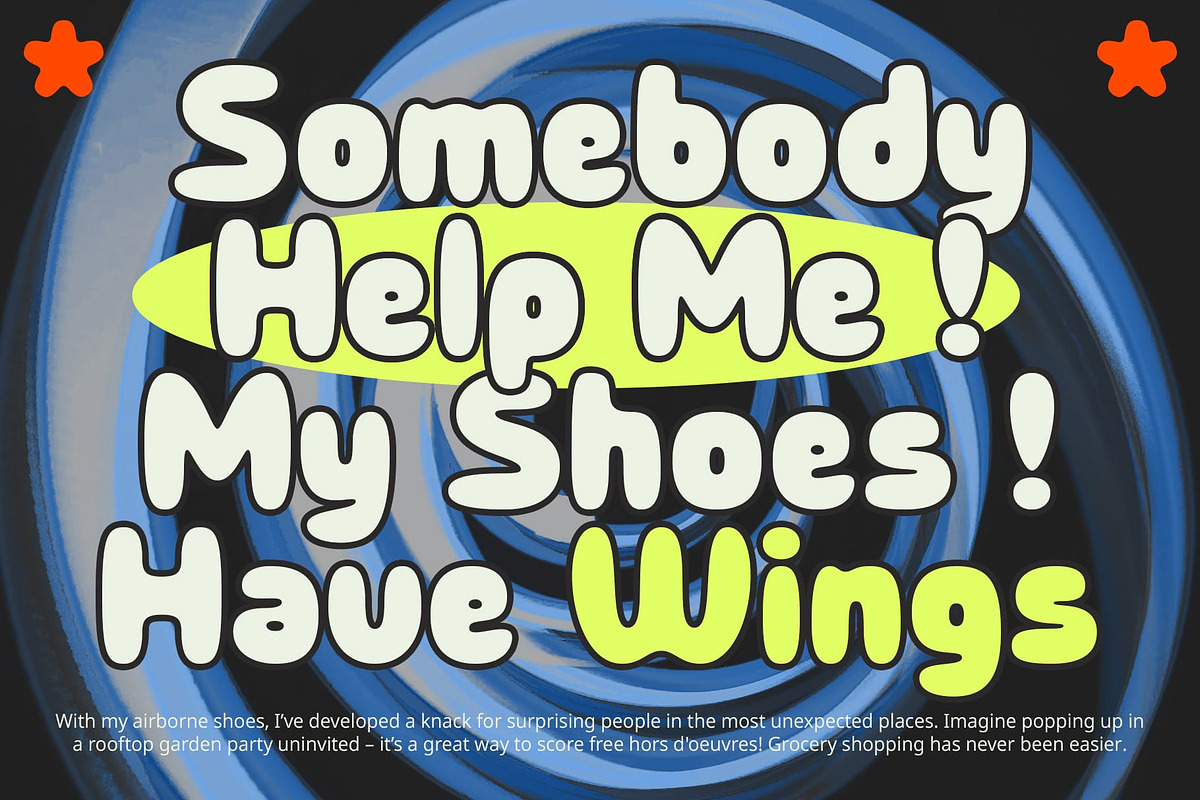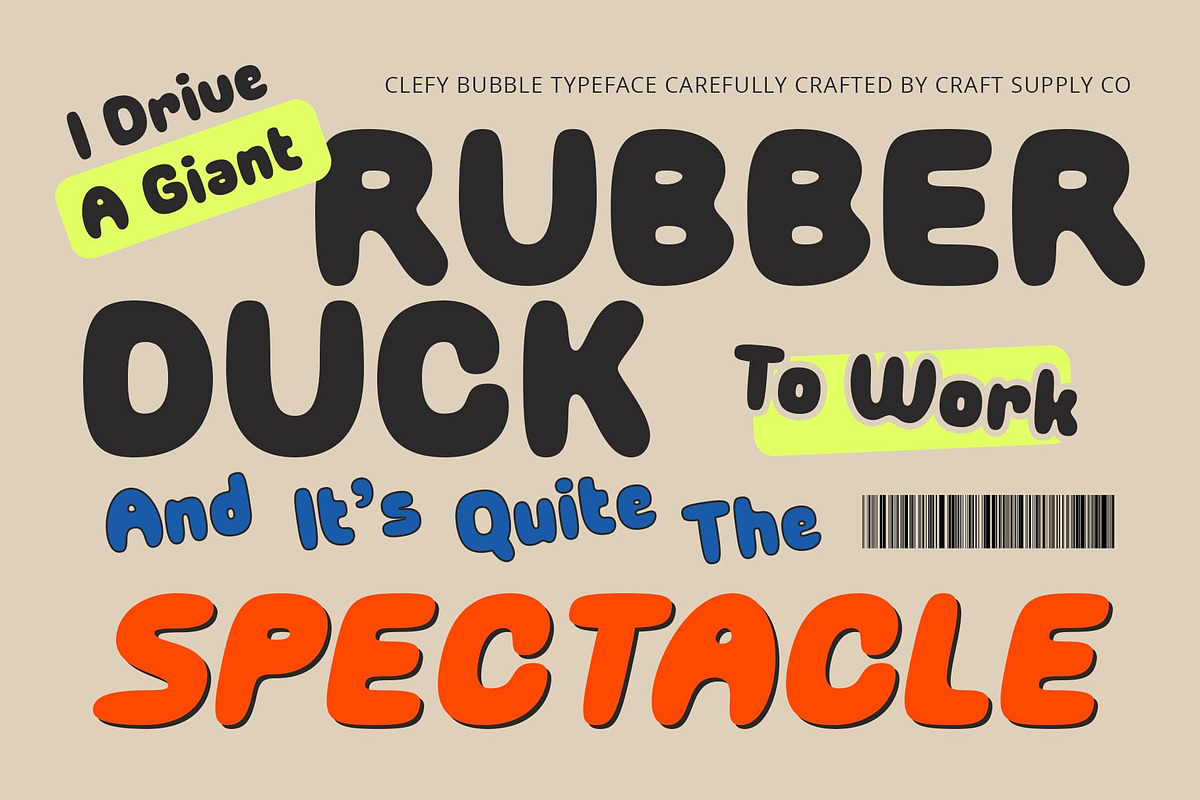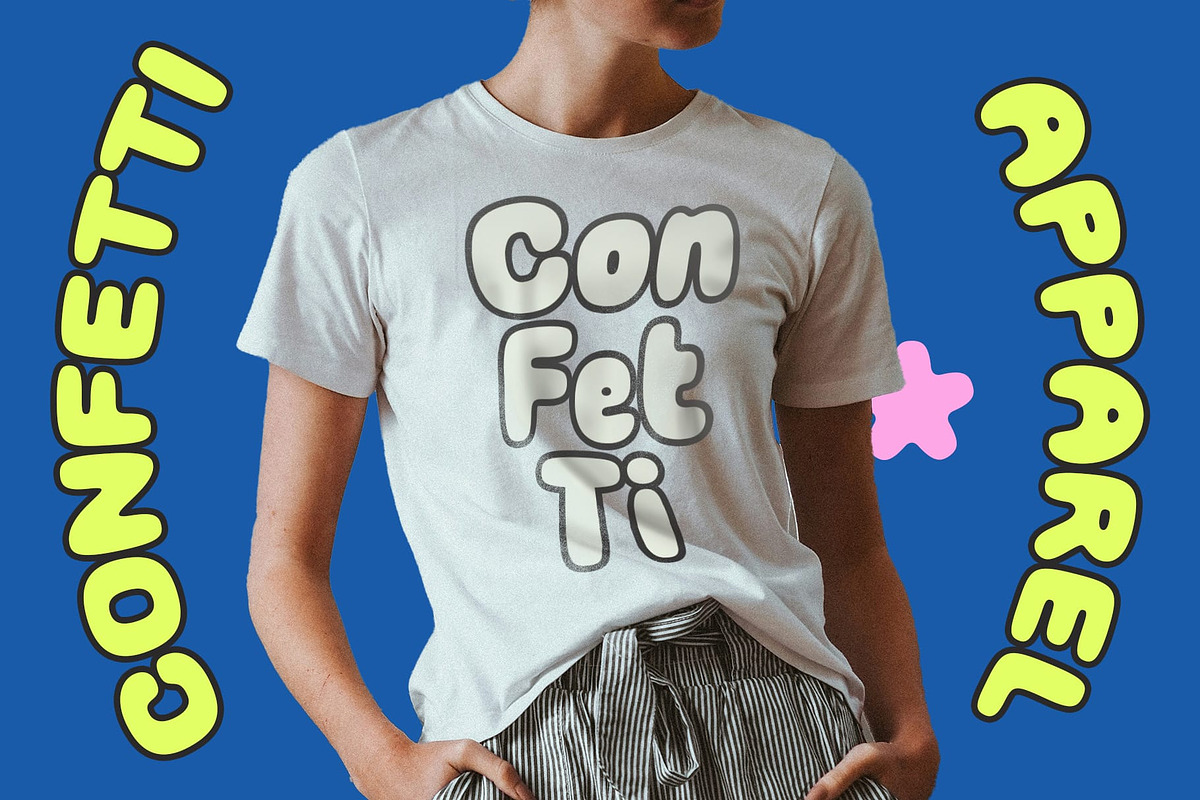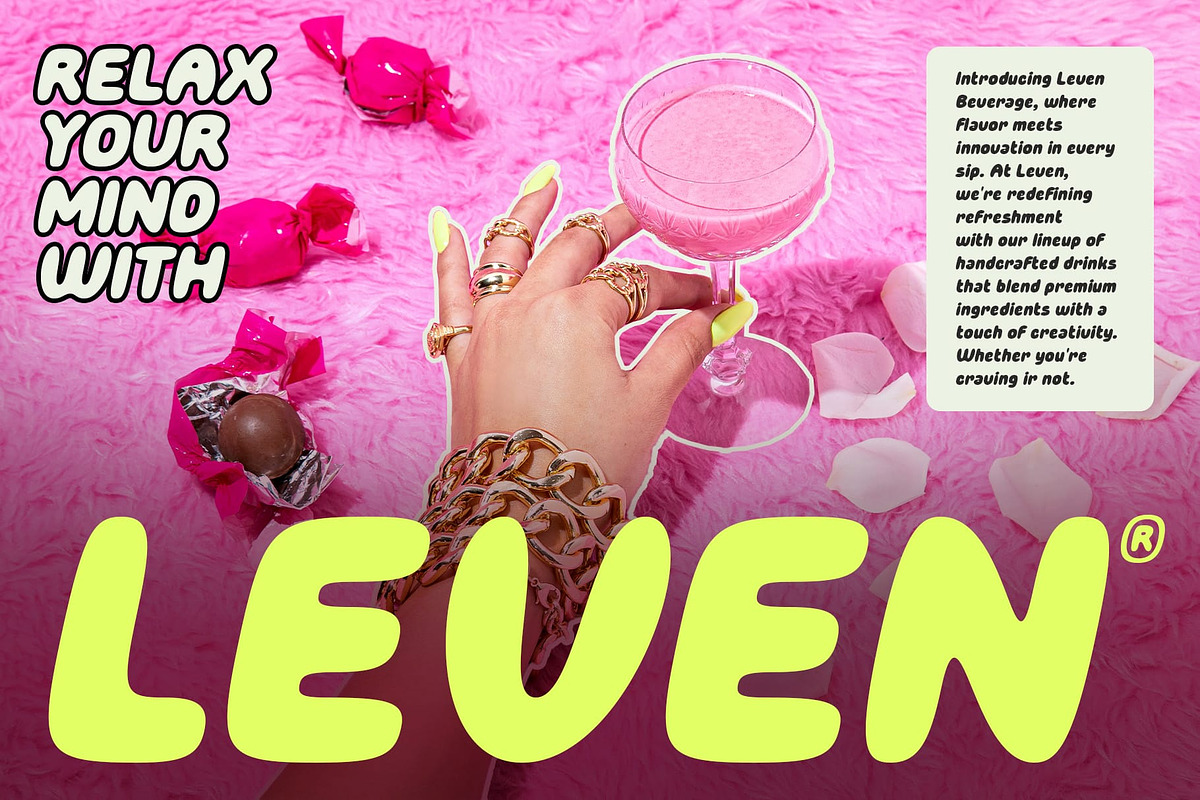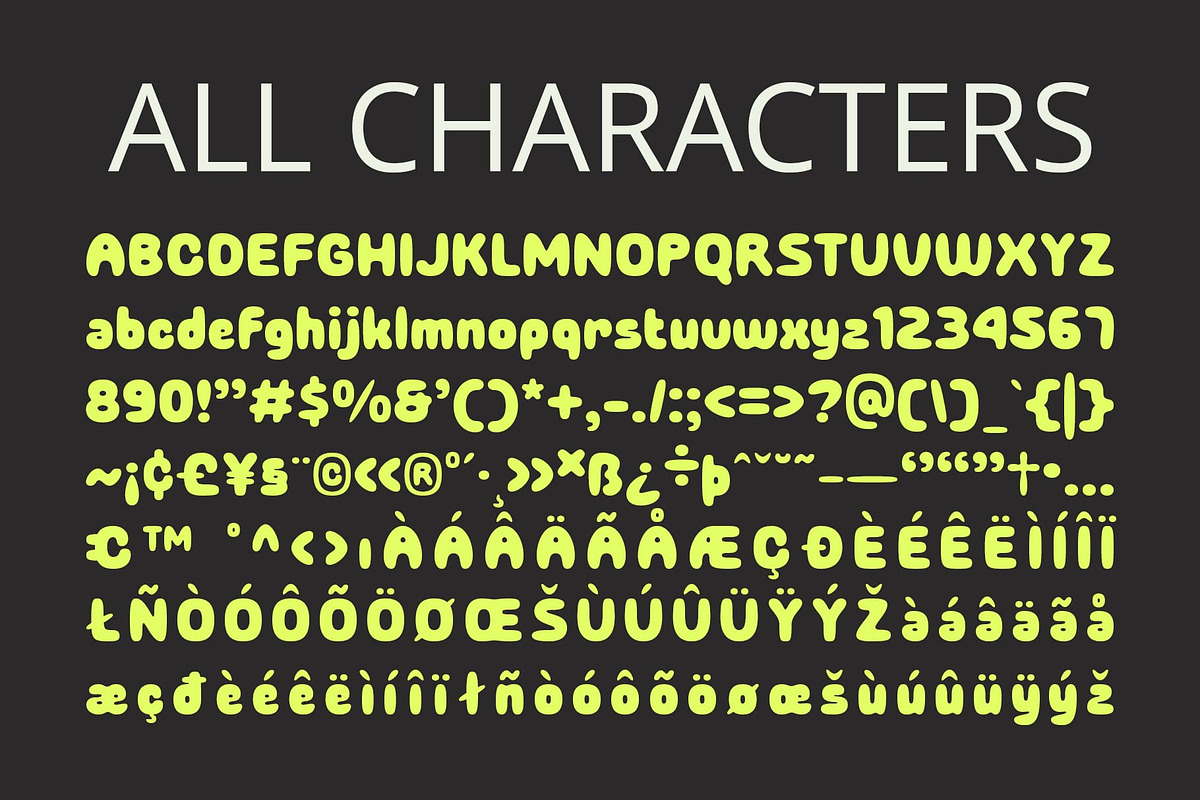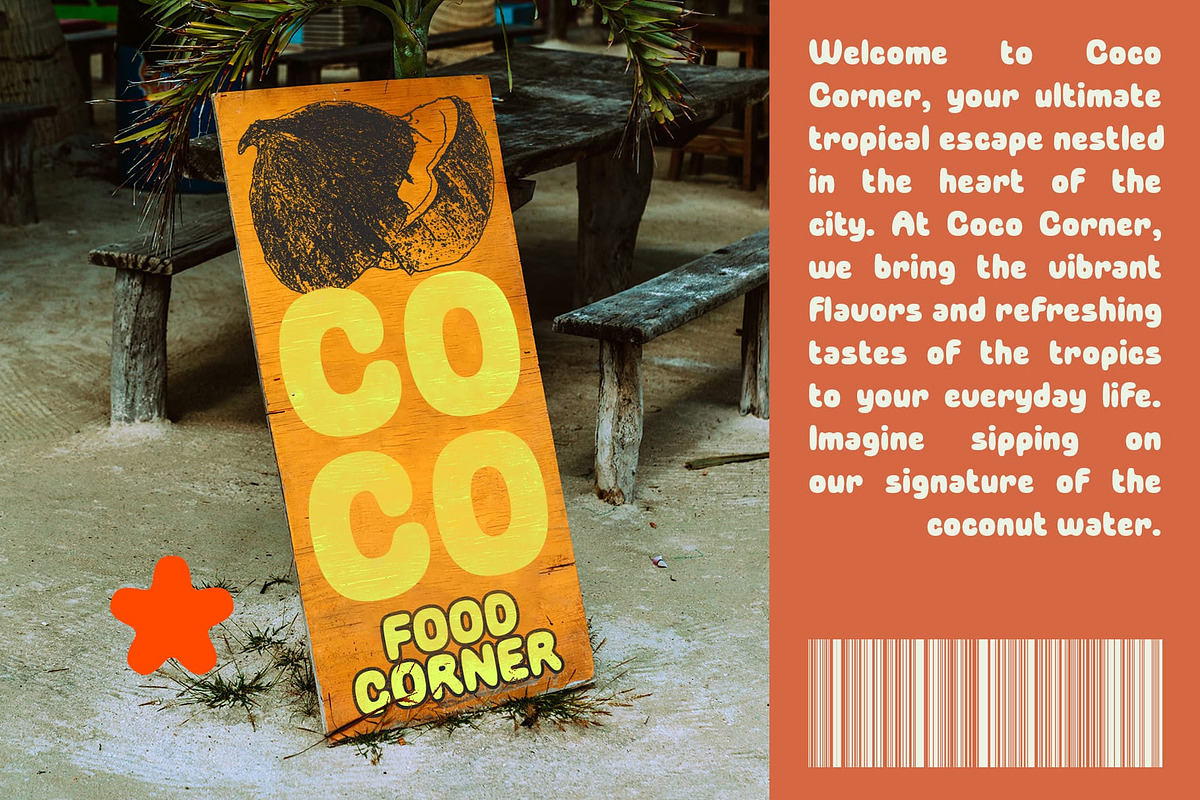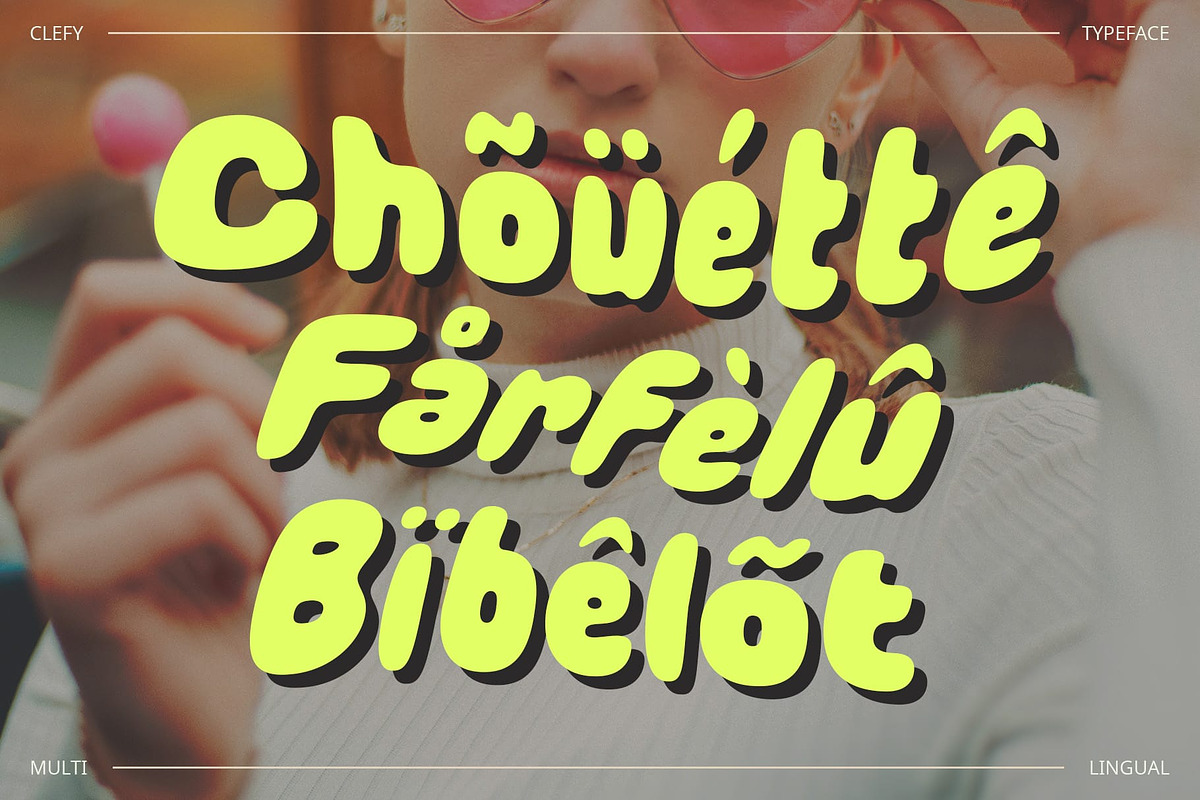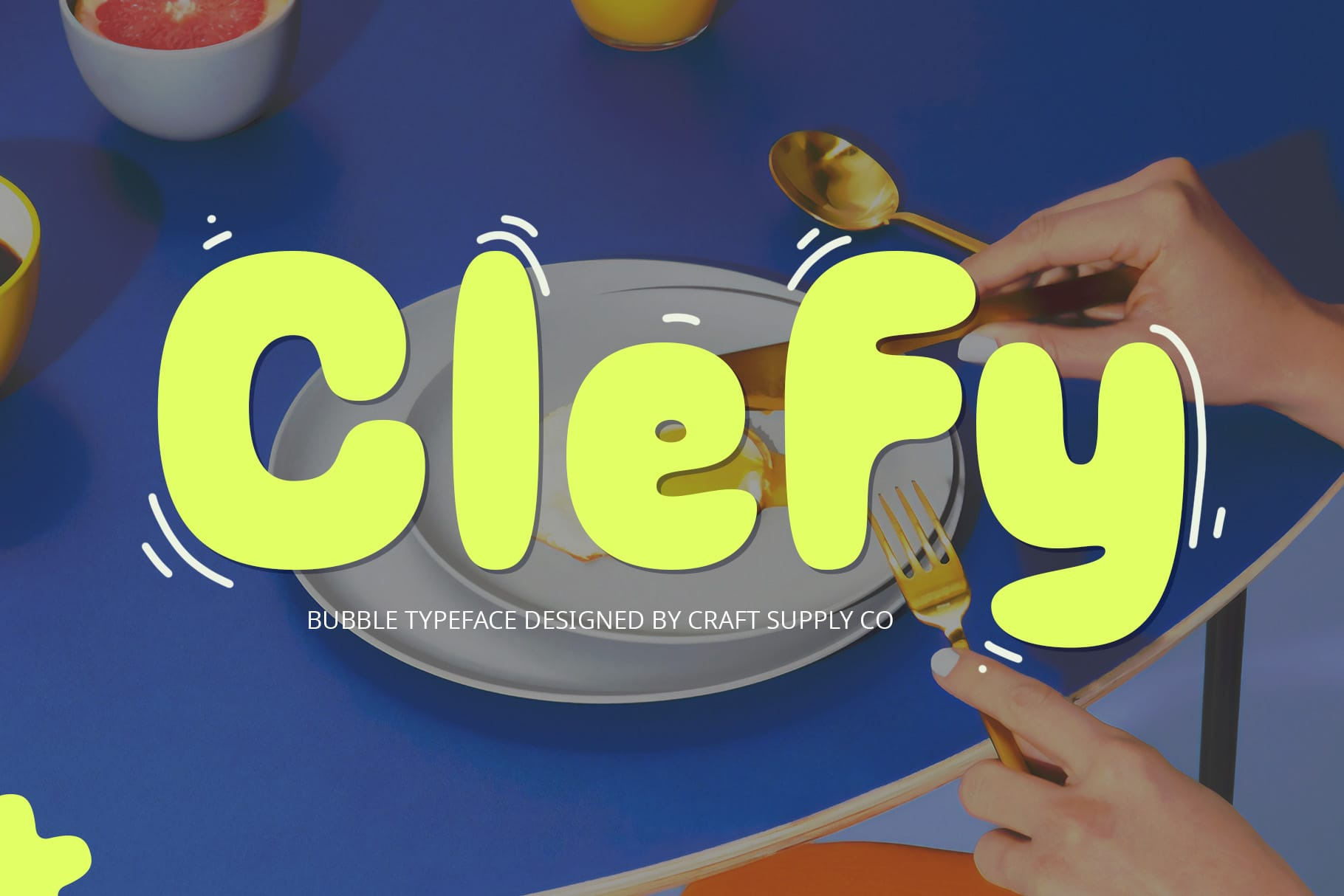
Clefy – Bubble Font
Clefy: Fun and Funky Bubble Font
Bubble and Funky Display Font
Clefy is a display font that combines bubble shapes with a funky style, creating a cheerful and attention-grabbing character. The round and soft bubble forms give it a friendly and approachable look, while the funky elements add a creative and unique touch.
Perfect for Fun and Dynamic Designs
Clefy is ideal for designs that aim to convey a fun and dynamic vibe. Whether you’re designing event posters, children’s projects, or other creative endeavors, this font brings a playful and lively spirit to your work.
Cheerful and Eye-Catching
The cheerful character of Clefy makes it stand out in any design. Its bubble shapes and funky style create a visually appealing and captivating look, perfect for grabbing attention and making a memorable impression.
Versatile for Various Creative Projects
Clefy’s versatility makes it suitable for a wide range of creative projects. Use it for headlines, logos, posters, and more to infuse your designs with a sense of fun and creativity. Its unique and playful style ensures your work will be both distinctive and engaging.
Enhance Your Designs with Clefy
With its bubble shapes and funky style, Clefy adds a cheerful and creative touch to any design. Perfect for event posters, children’s designs, and other projects aiming to convey a fun and dynamic vibe, this font will make your work stand out with its unique and playful character.